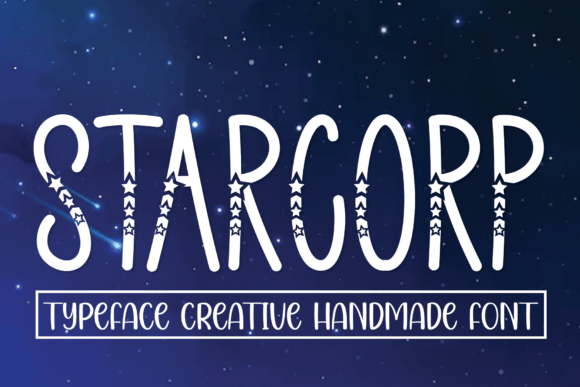
Introducing Starcorp Font, the Best Font for Vintage Sign! Created by the talented William Jhordy, this display font is a true masterpiece that will captivate your imagination.
With its sweet and friendly handwritten style, Starcorp Font adds a touch of charm and elegance to any project. Whether you're designing wedding invitations, greeting cards, or simply craving a fun and unique font for your creative endeavors, Starcorp Font is the perfect choice.
Immerse yourself in the freshness and neatness of Starcorp Font, as it effortlessly brings your ideas to life. Its captivating curves and smooth lines evoke a sense of nostalgia, making it an ideal companion for vintage-themed designs. Let the magic of Starcorp Font transport you back to a bygone era, filled with timeless beauty and elegance.
Unlock your creativity and let Starcorp Font be the muse that guides your imagination. Its versatility allows you to experiment with various design elements, ensuring that each project is a masterpiece in its own right. From posters to logos, this font adapts seamlessly to any medium, effortlessly elevating your creations to new heights.
But Starcorp Font is more than just a font; it's a journey into the realm of emotions. As you write, each stroke carries with it a sense of joy and excitement. The curves and loops dance across the page, whispering stories of love, laughter, and cherished memories.
Embrace the power of Starcorp Font and watch as your designs come alive with its captivating presence. Stand out from the crowd and leave a lasting impression on your audience. Whether you're a professional designer or a DIY enthusiast, Starcorp Font will be your trusted companion on this creative adventure.